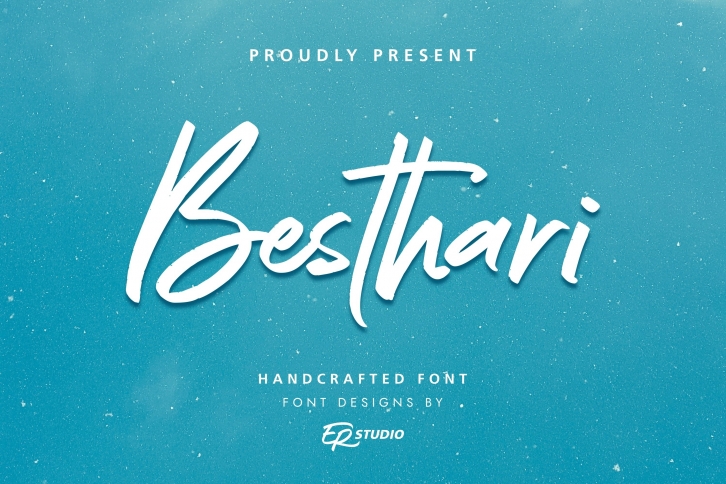
Besthari is a gorgeous font that was realeased on March 17, 2021. The font can be used in many style contexts and design environments. Perfect for invitations, magazines, websites, logos, and more! It was designed by ERstudio and the file size is 18.41 MB. Thanks for checking out this font!